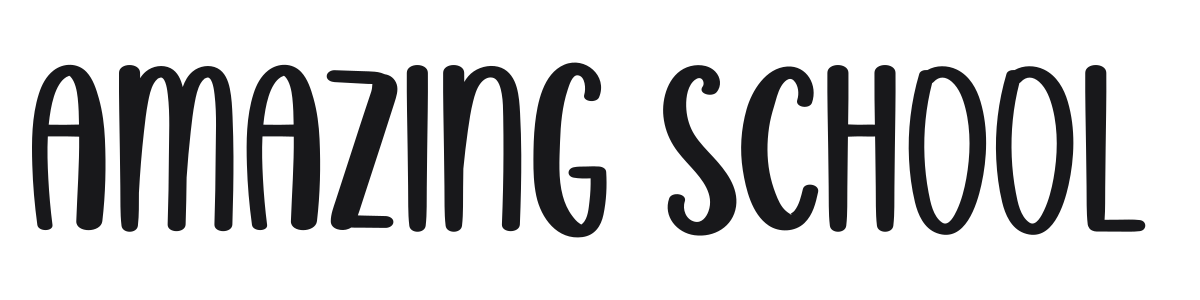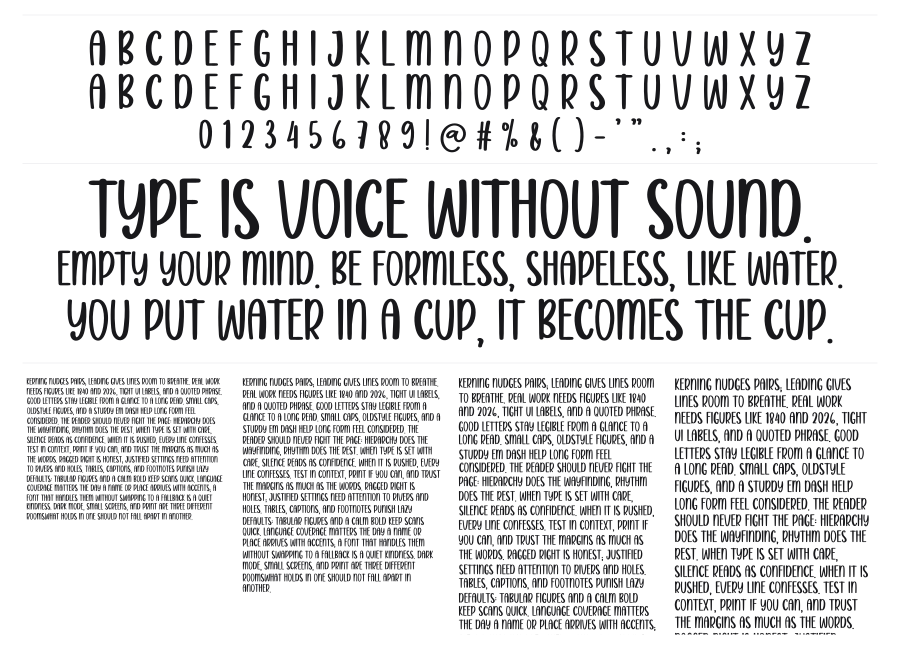
Amazing School
Amazing School is a tall, rounded sans-serif with chunky strokes and a casual hand-drawn character. The condensed proportions and soft, organic curves give it a playful energy that works naturally in children's content, food packaging, and informal branding. It reads confidently at headline sizes without feeling stiff.